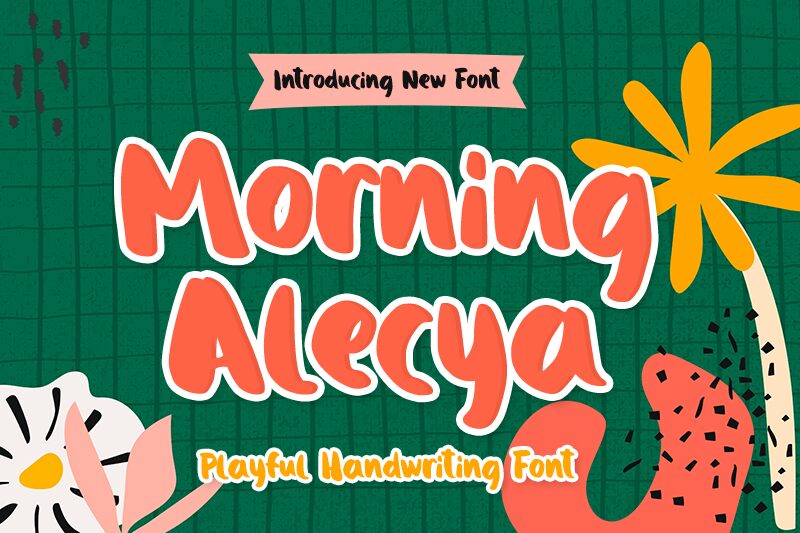
Introducing Morning Alecya, a bold and playful handwritten font designed by M Arif Dwi Prasetyo & Eko Nurcahyo. Perfect for crafting attention-grabbing titles and poster designs, this font is also suitable for comic books and other creative projects.
Morning Alecya
Creakokun Studio
M Arif Dwi Prasetyo & Eko Nurcahyo